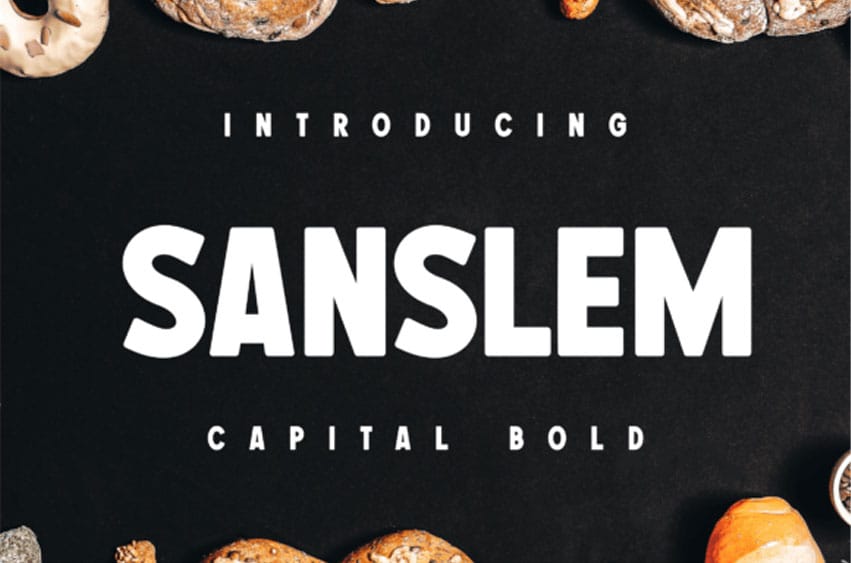
Sanslem Font is a bold, all caps display font featuring the perfect amount of trendiness.
Whether you’re using it for crafting, digital designing, presentations or greeting cards making, it’s perfect!